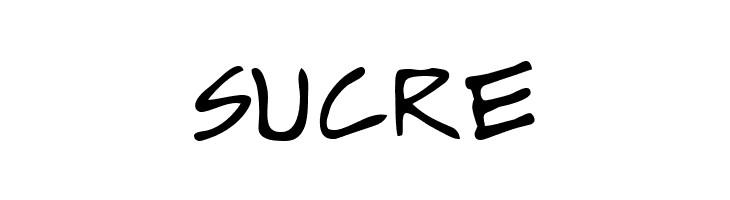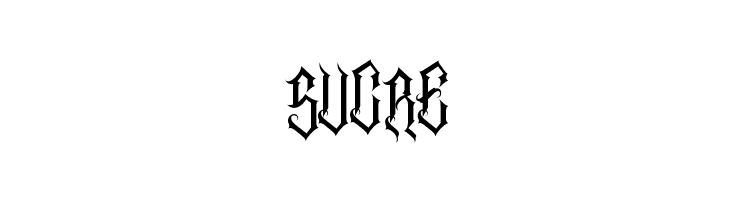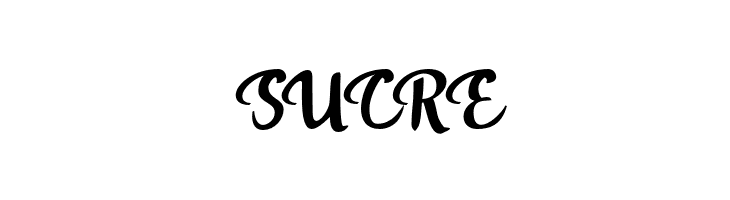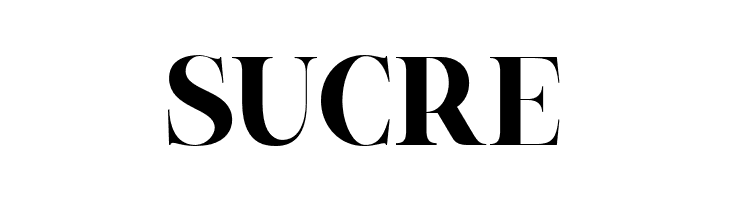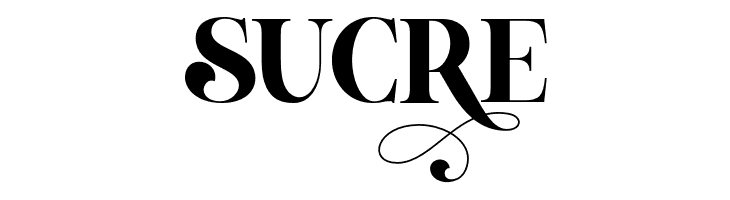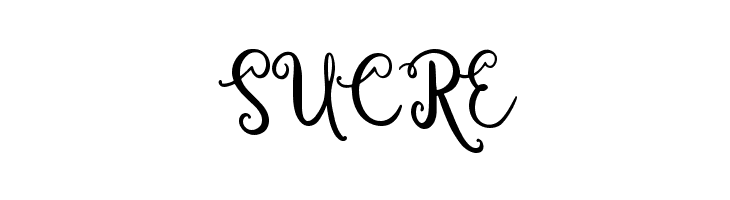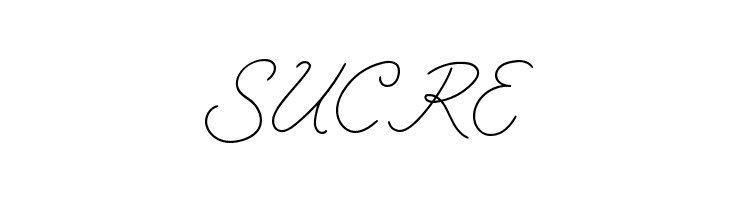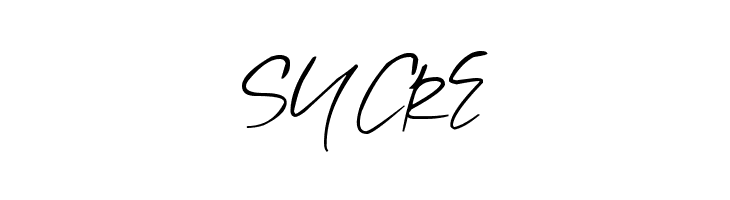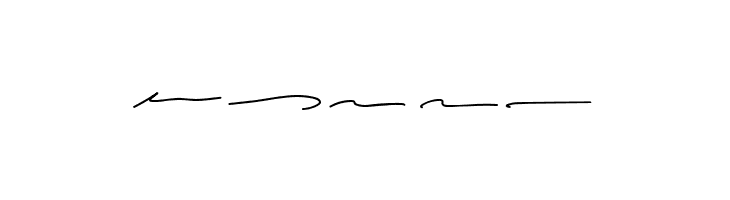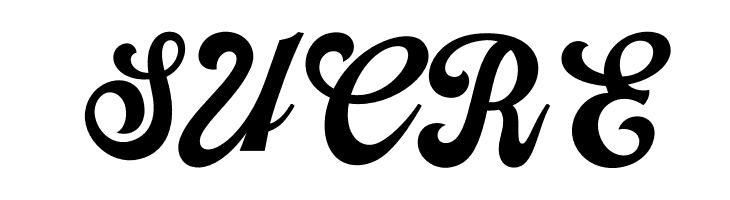
• AL_Nevrada_PersonalUseOnly
A bold, high-contrast serif font with dramatic serifs and elegant style.
• Al_Veshion_PersonalUseOnly
A bold, high-contrast serif font with dramatic strokes and elegant serifs.
• Al-HadariBold
A bold, modern font with geometric shapes and clean lines.
• Al-seana
• AL'RHASID RUSH
A bold, decorative font with a distressed, vintage texture.
• Ala Carte
• Alabama
• alabama
A cursive, handwritten font with elegant loops and fluid strokes.
• alabama swash
A graceful, flowing script font with elegant, connected strokes.
• Alabasta Regular
A bold, angular Blackletter-inspired font with intricate detailing.
• Alabasta Regular
A bold, gothic-inspired font with sharp, angular edges and intricate detailing.
• Alabastha
A lively and expressive script font with dynamic, flowing letterforms.
• Alachua
• Alachua Bold
• Aladdin Regular
• Aladin Regular
A whimsical and elegant font with decorative swashes and curls.
• aladina script
A graceful and fluid script font with interconnected letters and elegant curves.
• Alafyou Swirly Demo
A whimsical and elegant font with decorative swirls and curls.
• alagambe
A fluid, cursive font with a natural handwriting style.
• Alagunna
A playful, casual handwritten font with a whimsical and informal style.
• Alain Perso
A playful and casual handwritten font with dynamic strokes.
• Alakita-Regular
A bold, flowing script font with smooth, connected strokes and rounded edges.
• Alako-Bold
• Alam Raya
A lively, flowing script font with elegant connections and a personal touch.